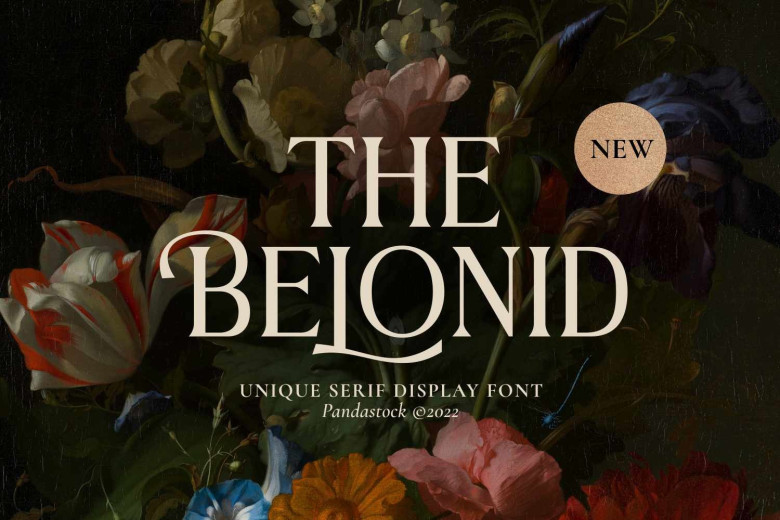
The Belonid Font
The Belonid is an elegant serif font with smooth curves and stunning ligatures that will add sophistication and credibility to your work.
This font is extremely flexible, working well in both large and small sizes. This font can be used for multiple projects including logos and invitations as well as branding magazines photography cards mockups quotes posters labels signatures editorials websites art deco social media etc.
The Belonid Serif Font